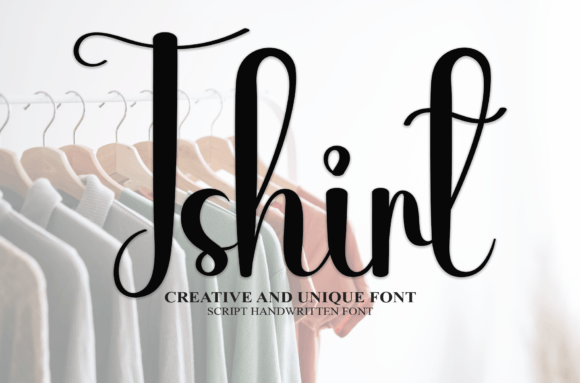
Introducing Tshirt Font, the perfect script font for all your wedding vow needs! Created by the talented William Jhordy, this font is a delightful blend of sweetness and friendliness that will captivate anyone who lays eyes on it.
With its fresh and neat design, Tshirt Font is the ultimate choice for those who want to add a fun and playful touch to their wedding invitations, cards, and any other designs. This font is specifically crafted to infuse joy and excitement into your special day, making it an ideal companion for creating memorable and enchanting wedding experiences.
Why settle for ordinary fonts when you can elevate your wedding stationery with Tshirt Font? Its handwritten style brings a personal and intimate feel to your words, evoking a sense of warmth and authenticity. Each letter is meticulously crafted to showcase the beauty of imperfection, adding a unique and charming element to your designs.
Tshirt Font is the epitome of versatility, allowing you to explore endless creative possibilities. Whether you want to create elegant and romantic wedding vows, design eye-catching signage for your big day, or craft heartfelt thank you cards, this font has got you covered. Its adaptability ensures that every project you undertake will be infused with a touch of magic and personality.
But what truly sets Tshirt Font apart is its ability to evoke emotions. From the moment your guests receive their invitations, they will be enchanted by the whimsical allure of this font. Its playful strokes and graceful curves create a sense of joy and anticipation, setting the tone for a celebration filled with love and happiness.
Downloading Tshirt Font is like unwrapping a gift filled with endless possibilities. It empowers you to transform your ideas into reality, breathing life into your designs with its enchanting charisma. Whether you are a professional designer or a DIY enthusiast, this font will become your trusted companion, inspiring you to create captivating and unforgettable pieces of art.
So why wait? Let Tshirt Font be the secret ingredient that elevates your wedding stationery to new heights. With its captivating charm and versatility, this font will ensure that your designs leave a lasting impression on everyone who lays eyes on them. Download Tshirt Font today and embark on a journey of creativity and heartfelt expression.